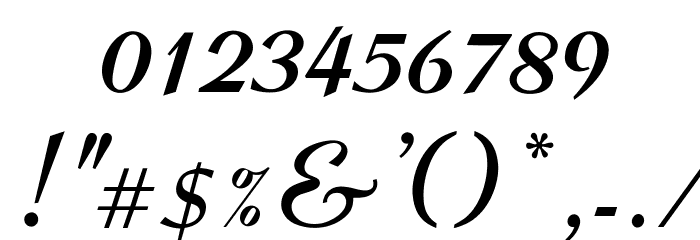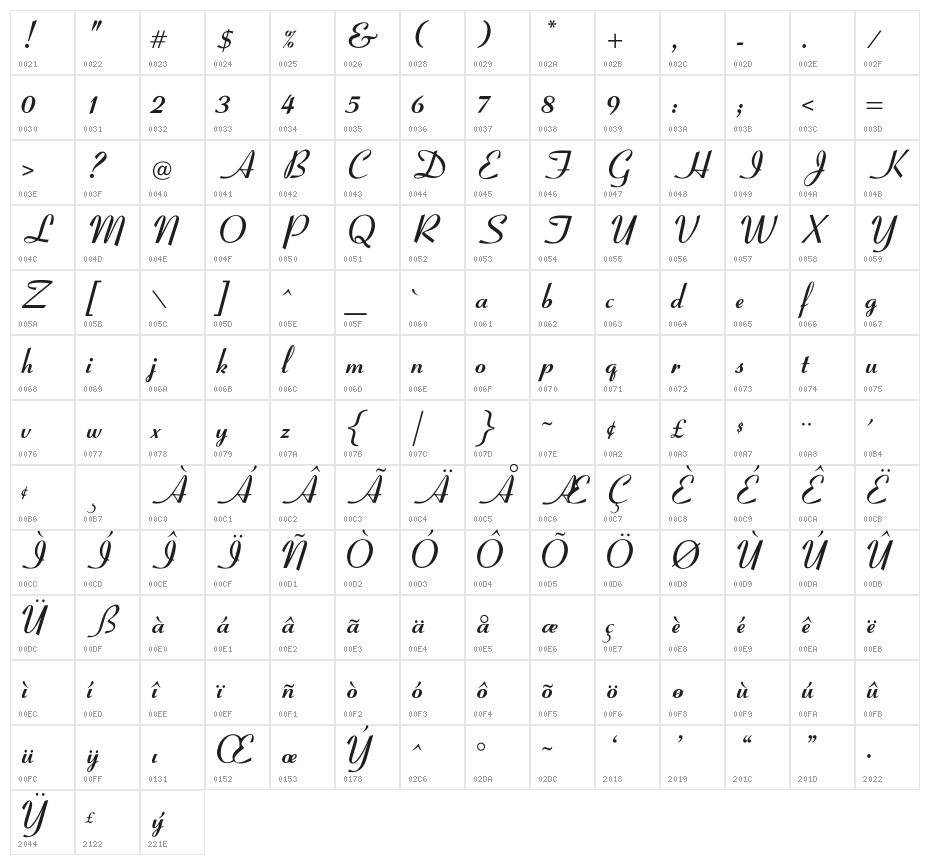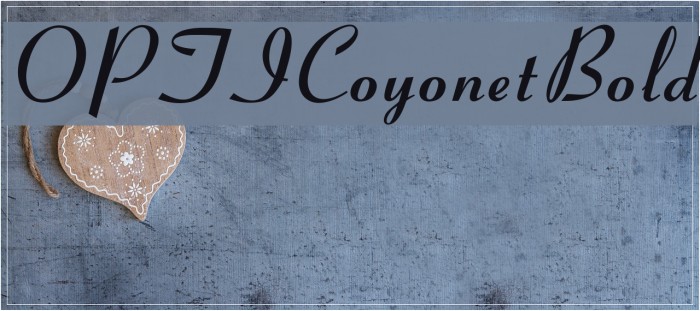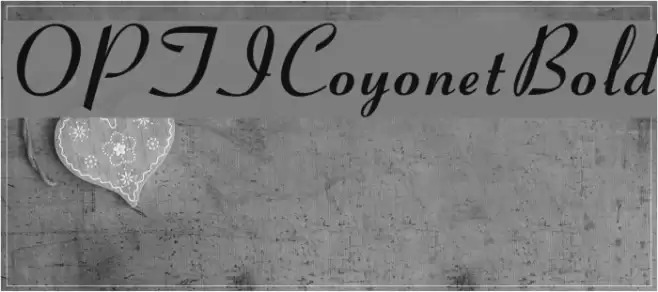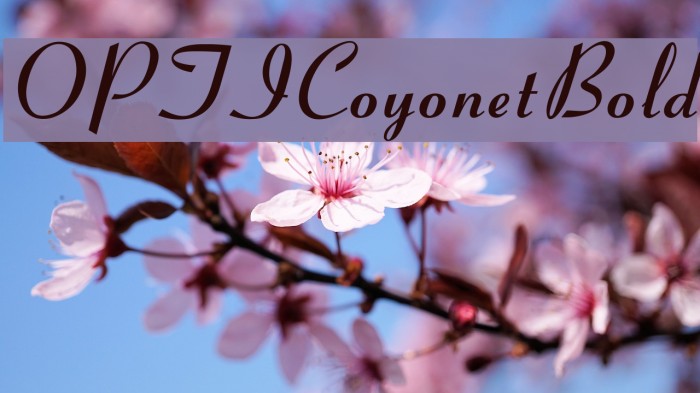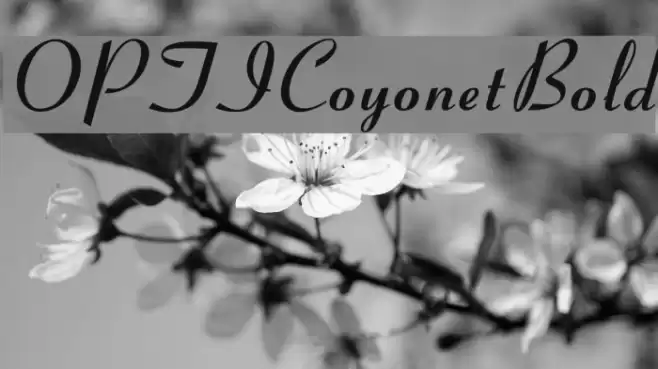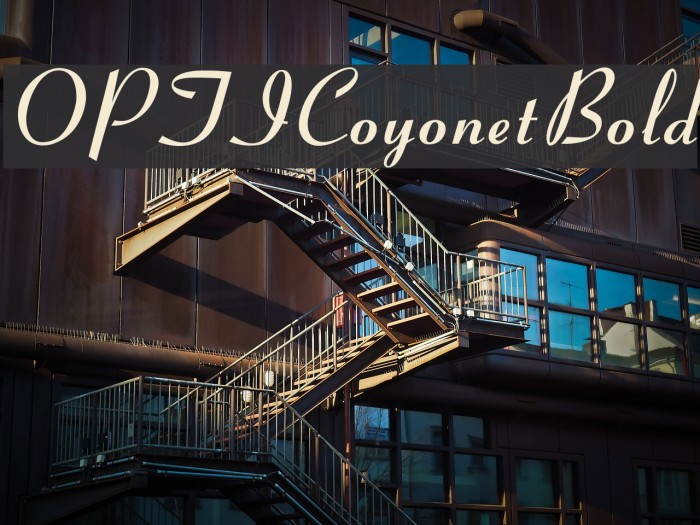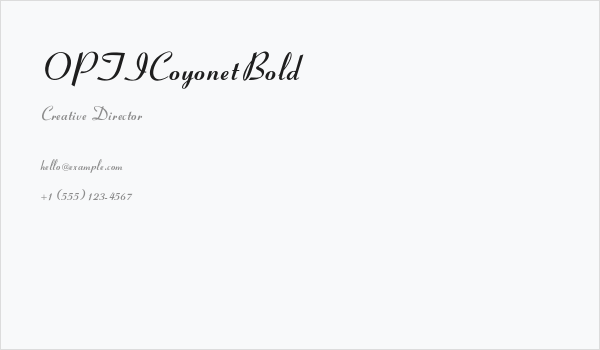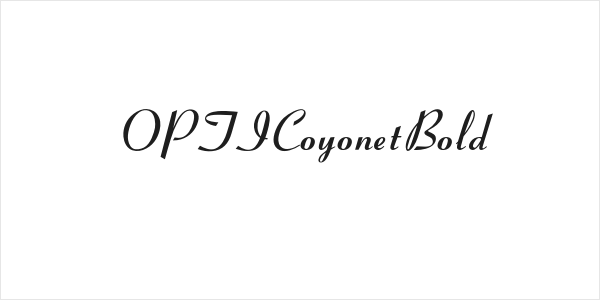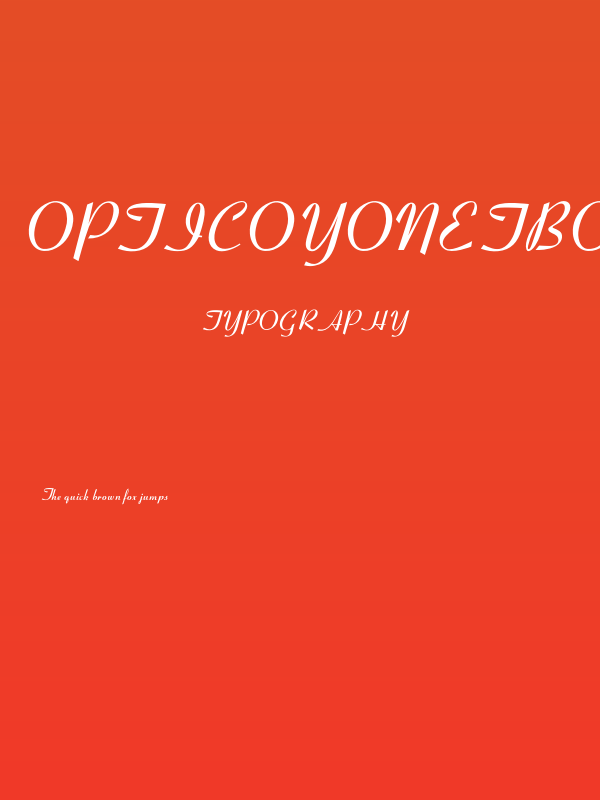
OPTICoyonetBold Font
OPTICoyonetBold Description
This font features a dynamic and elegant script style, characterized by its flowing and cursive letterforms. The uppercase letters exhibit a graceful slant with smooth curves and a consistent stroke width, creating a sense of movement and sophistication. The lowercase letters maintain this fluidity, with distinctive loops and swashes that enhance its decorative appeal. The numerals are bold and slightly italicized, complementing the overall style. Special characters are well-integrated, maintaining the font's cohesive aesthetic. This font's design is both artistic and legible, making it suitable for a variety of creative applications.
| Proposed Projects | Ideal for wedding invitations, branding, greeting cards, and elegant packaging. |